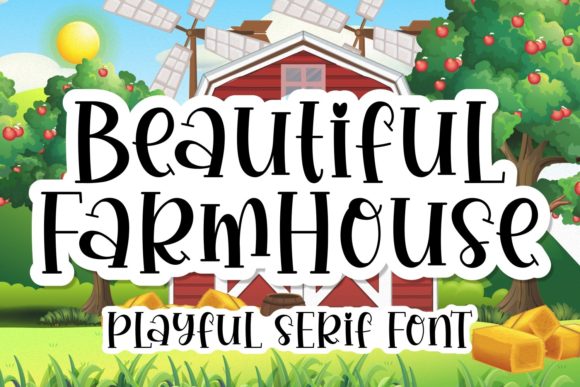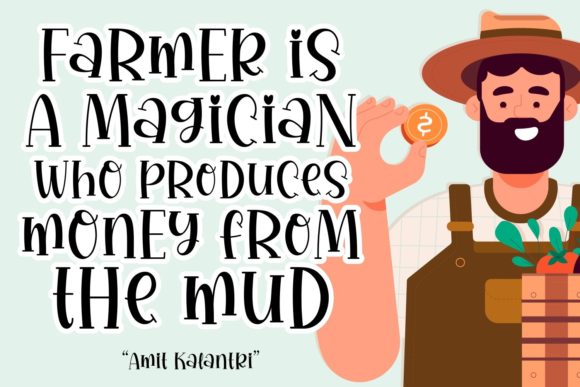
Beautiful Farmhouse Font
Beautiful Farmhouse is a fun, charming and quirky serif font. It can easily be matched to an incredibly large set of projects, so add it to your creative ideas and notice how it makes them stand out!